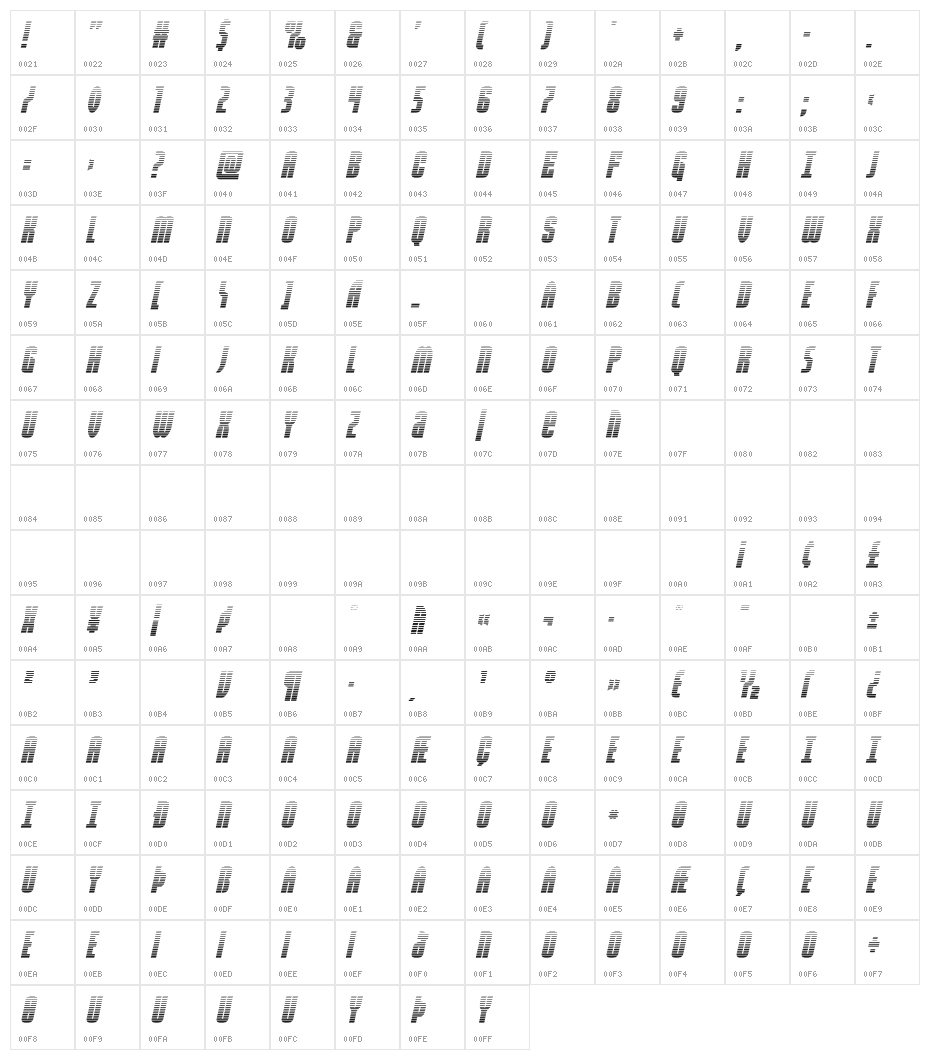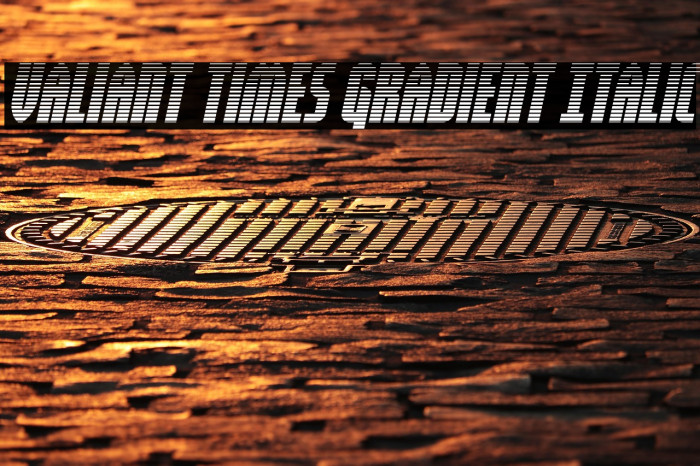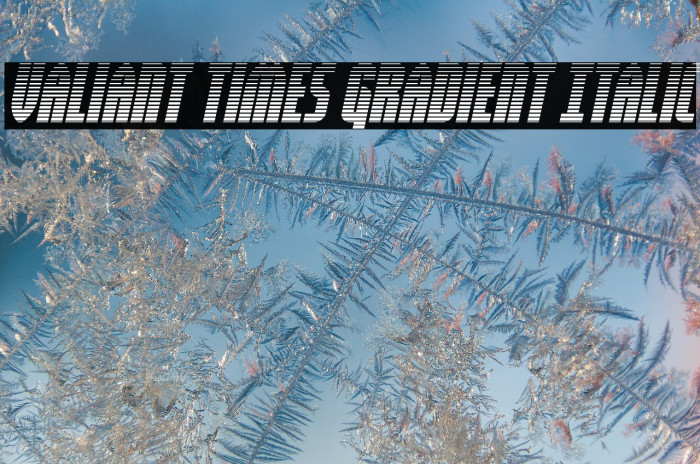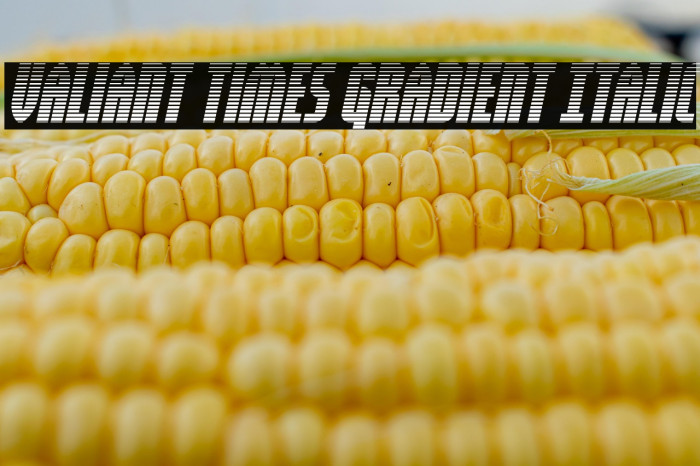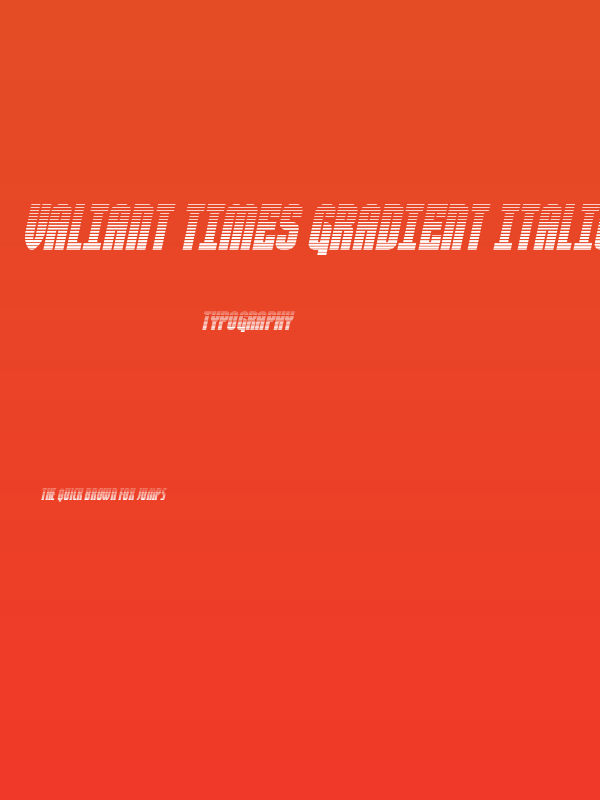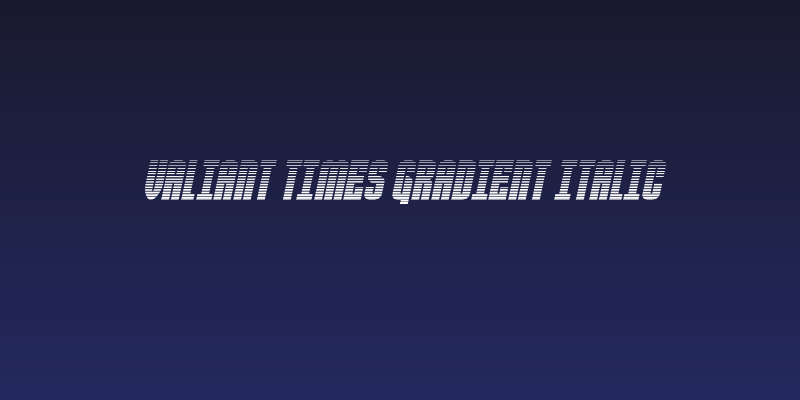
Valiant Times Gradient Italic Font
Valiant Times Gradient Italic Description
This font features a bold, italicized style with a distinctive gradient effect that gives each character a dynamic, three-dimensional appearance. The letters are constructed with horizontal lines that create a sense of movement and energy, making it ideal for attention-grabbing designs. The uppercase and lowercase letters maintain a consistent width, while the numbers and special characters follow the same stylistic approach. The overall design is modern and futuristic, with a unique flair that sets it apart from traditional fonts. The gradient effect enhances the visual impact, making it suitable for projects that require a bold statement.